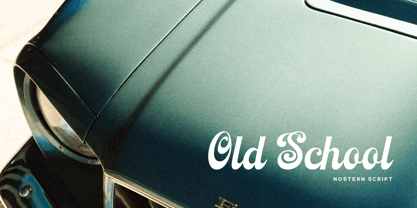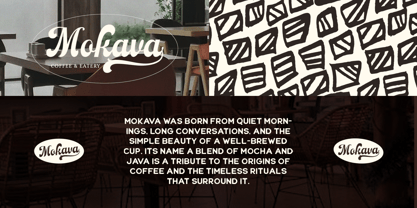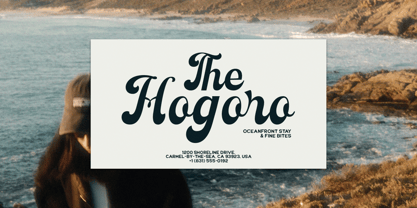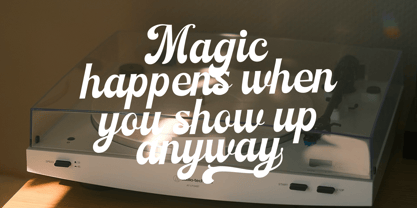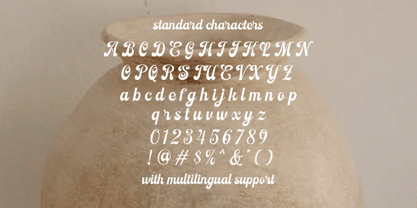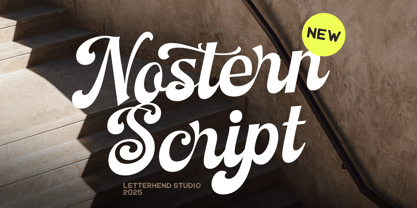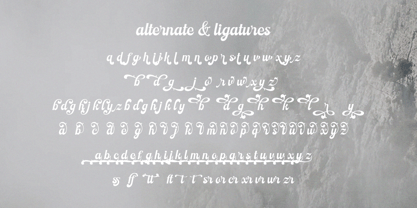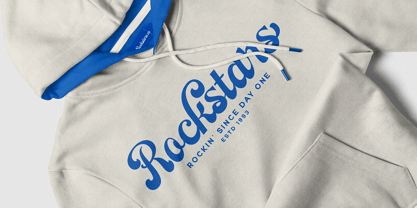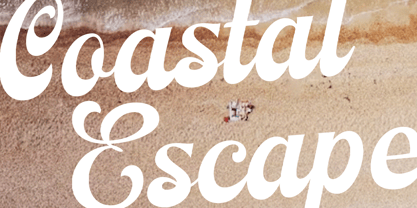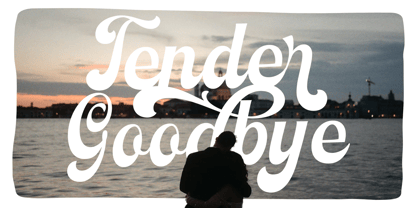
Nostern Script
by Letterhend
The Nostern Script Font Family was designed by Hendry Juanda and published by Letterhend. Nostern Script contains 1 styles.
Nostern Script is a bold and expressive script typeface with a modern vintage aesthetic. Featuring high contrast strokes, elegant swashes, and ornamental curls, this typeface offers a dramatic yet refined look that commands attention. The strong vertical structure paired with whimsical, retro-inspired terminals makes it ideal for branding, editorial headlines, fashion logos, packaging, and poster design. Its contemporary flourish with classic roots brings a unique personality to both digital and print layouts, especially where a sophisticated yet playful character is desired.
Designers: Hendry Juanda
Publisher: Letterhend
Foundry: Letterhend